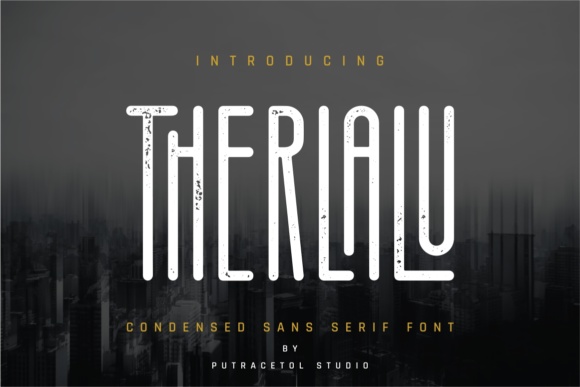
Behold the Therlalu Font, a Modern Sans Serif Masterpiece, Ready to Ignite Your Creative Vision
In a world of digital expression, where words dance across screens and pixels paint emotions, the Therlalu Font emerges as a captivating dance partner, guiding your creative vision with elegance and precision. A sans serif marvel, Therlalu embodies the essence of modernity, its clean lines and sharp angles reflecting the dynamic spirit of our digital age.
As you embark on your creative journey, Therlalu presents itself in two distinctive versions: Standard and Rough. Indulge in the crisp, polished beauty of the Standard version, where each letter stands tall and proud, exuding confidence and clarity. Or embrace the untamed charm of the Rough version, where imperfections become art, adding a touch of raw energy to your designs.
Immerse yourself in the versatility of Therlalu, a font family that effortlessly adapts to a symphony of creative endeavors. From sleek logos that command attention to elegant web designs that captivate audiences, Therlalu weaves its magic across a multitude of platforms.
With Therlalu as your creative companion, your designs will transcend the ordinary and bloom into extraordinary works of art. Its condensed form lends itself to captivating headlines that demand attention, while its carefully crafted curves infuse paragraphs with a touch of sophistication.
Step into the realm of limitless expression with Therlalu, a font that ignites imagination and empowers you to create designs that resonate with your audience. Join the ranks of creative visionaries who have embraced Therlalu's allure, and elevate your designs to new heights of brilliance.
Let Therlalu be your muse, your faithful companion in the world of digital storytelling. As your fingers dance across the keyboard, Therlalu will faithfully translate your ideas into visually stunning creations, captivating your audience and leaving an indelible mark on their hearts and minds.